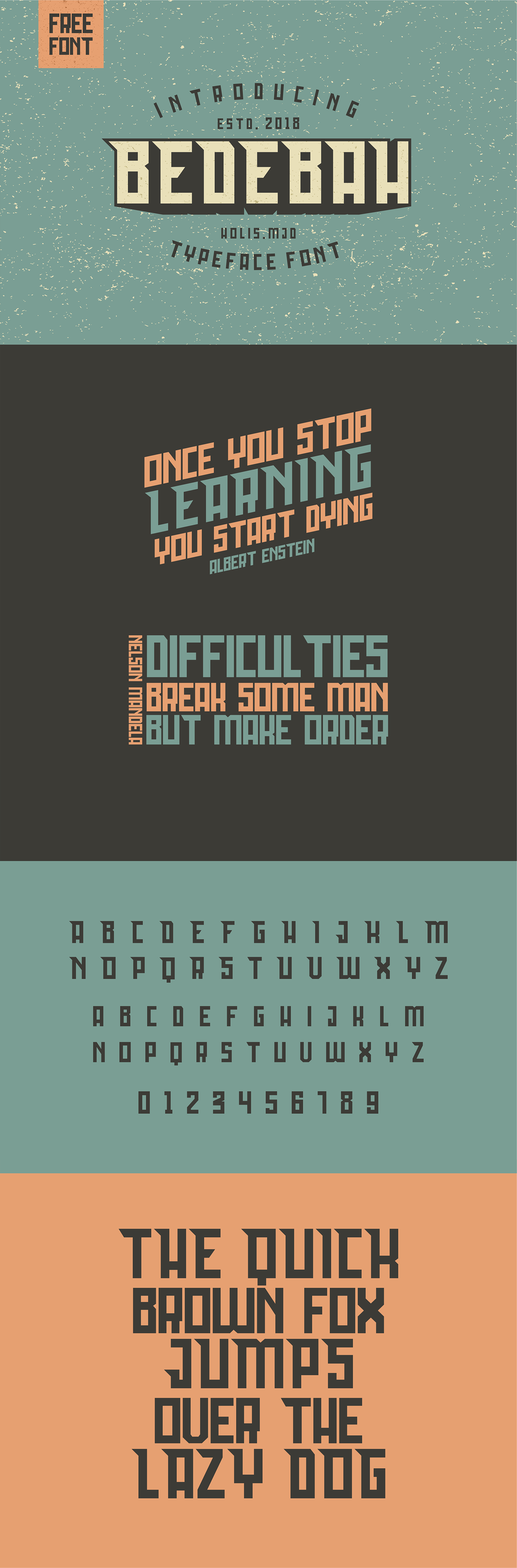
Bedebah is a slab serif font created by 24 Design stds. The font is perfect for logo designs, posters, product labels, flayers, brochures, videos and much more. Bedebah is free for personal use. For the commercial use please check here.